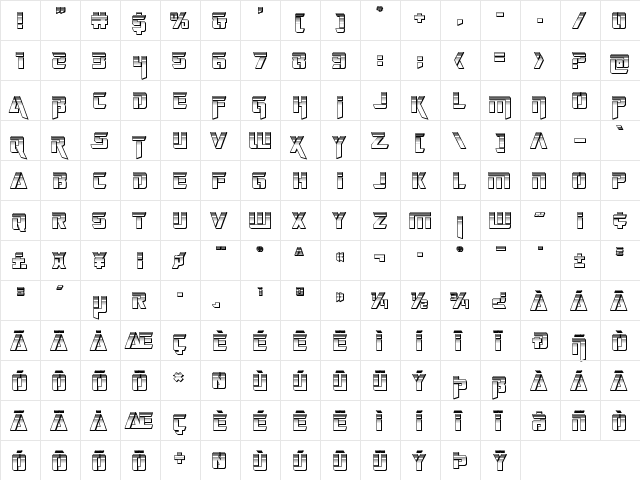
Deceptibots Chromium Regular
Design Context for Deceptibots Chromium Typeface
Deceptibots Chromium is a composed and adaptable typeface that performs quietly and consistently across a wide range of design contexts.